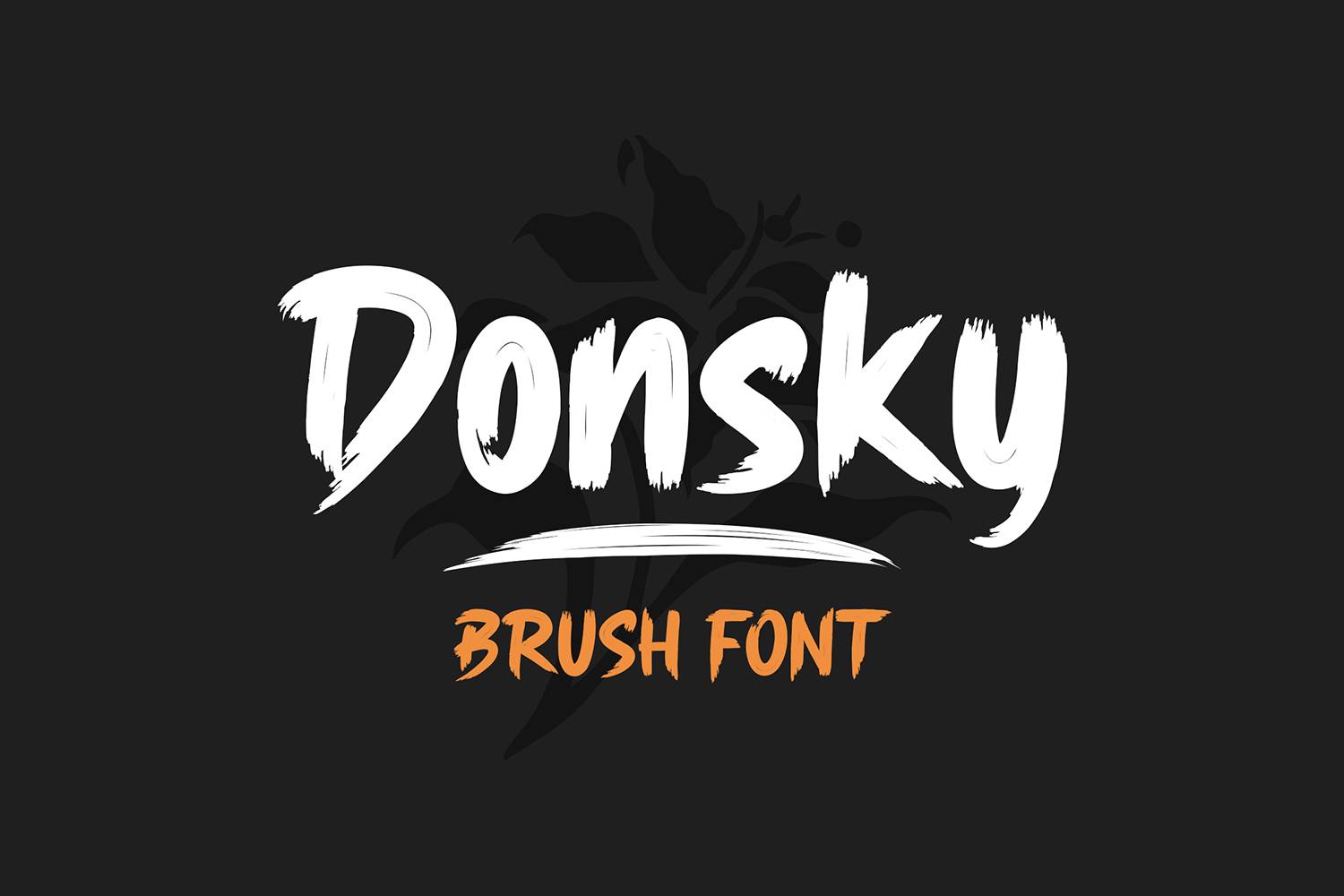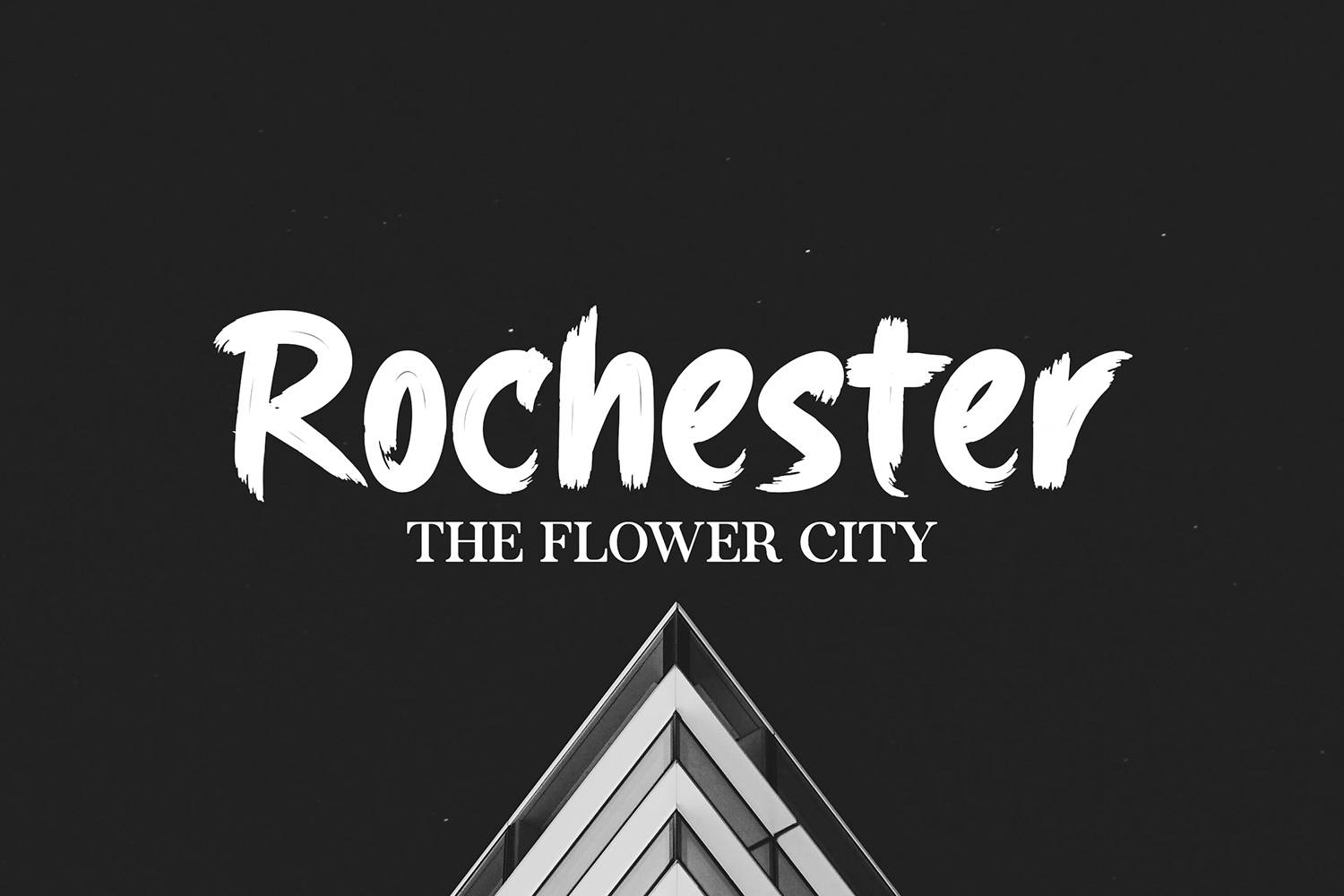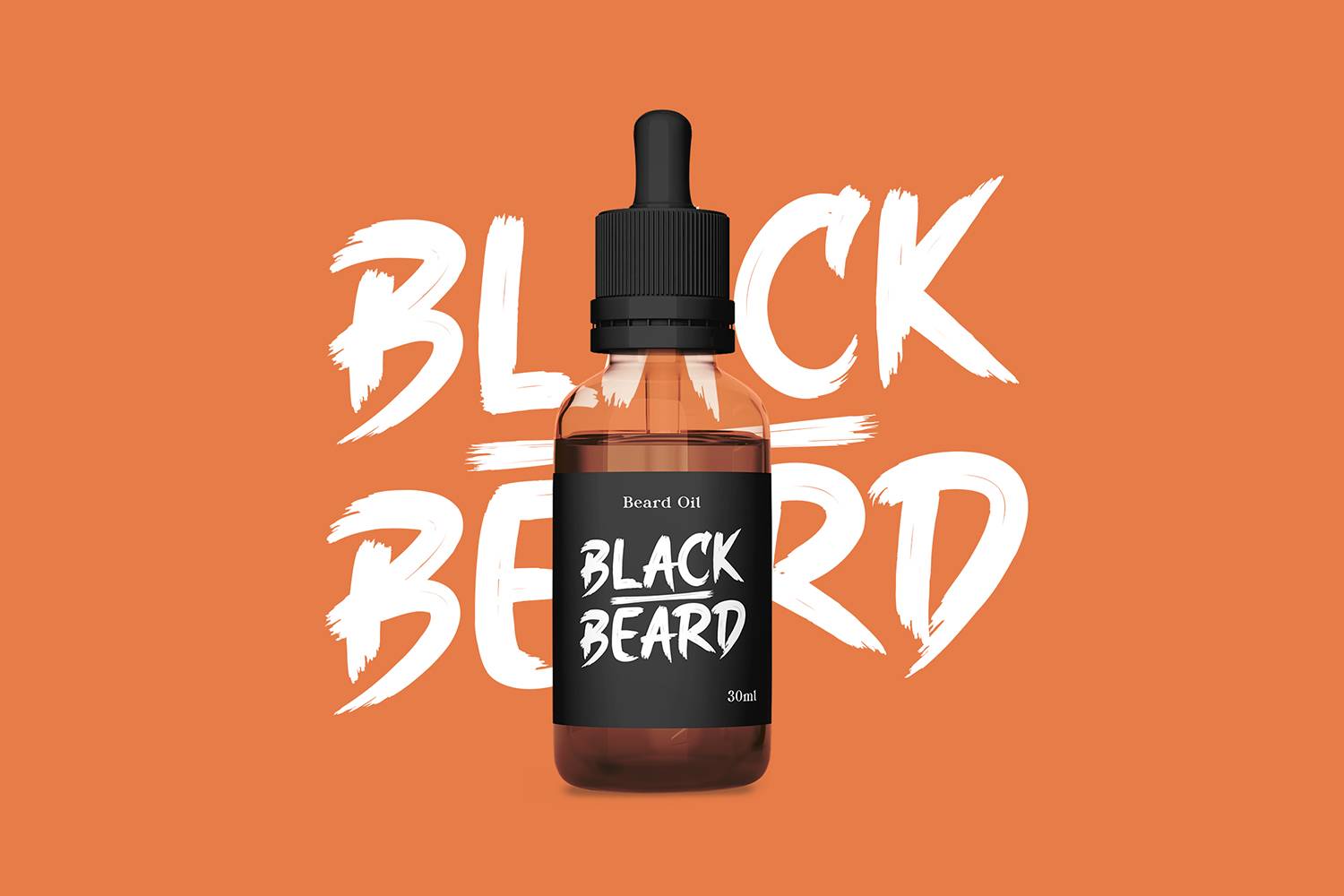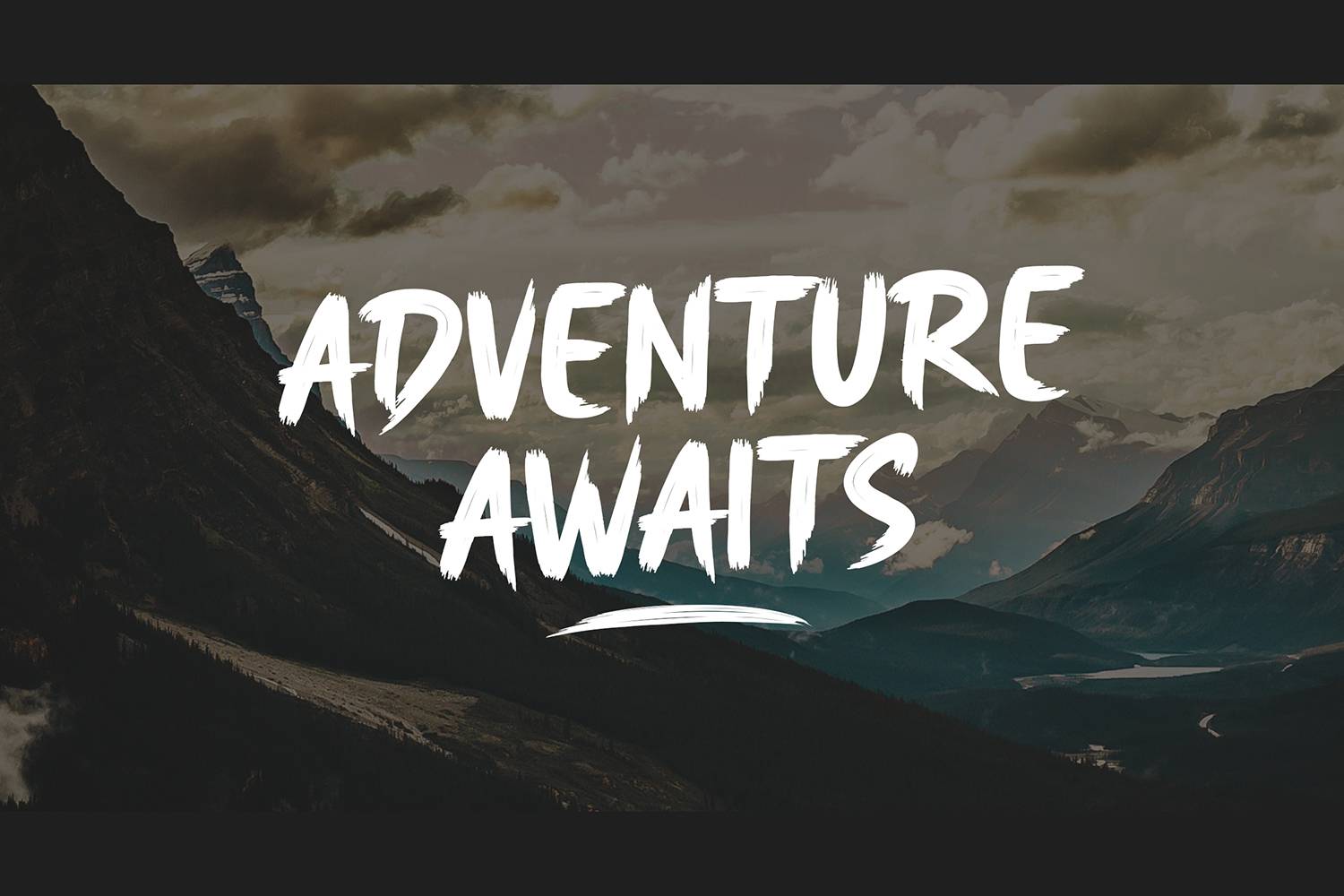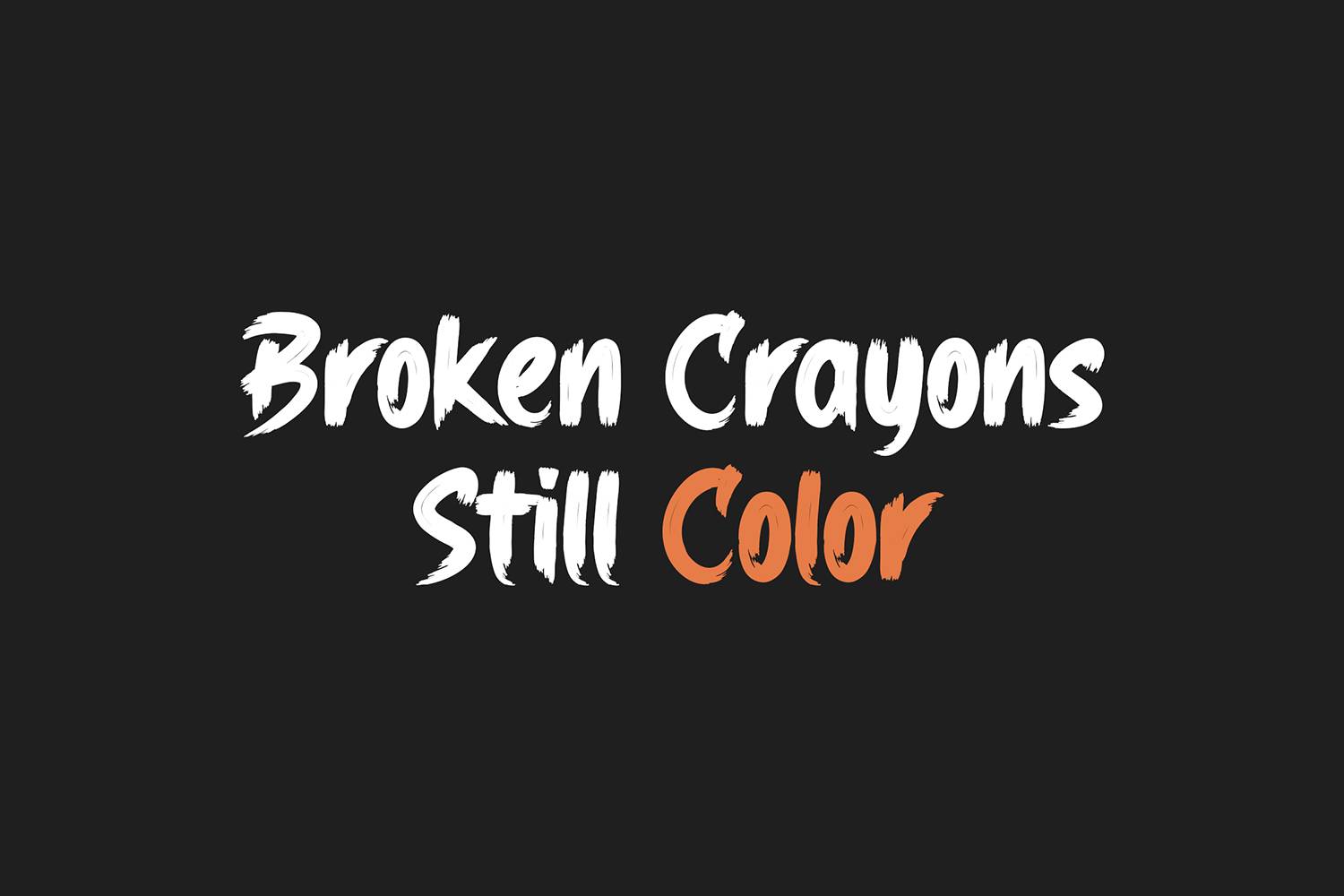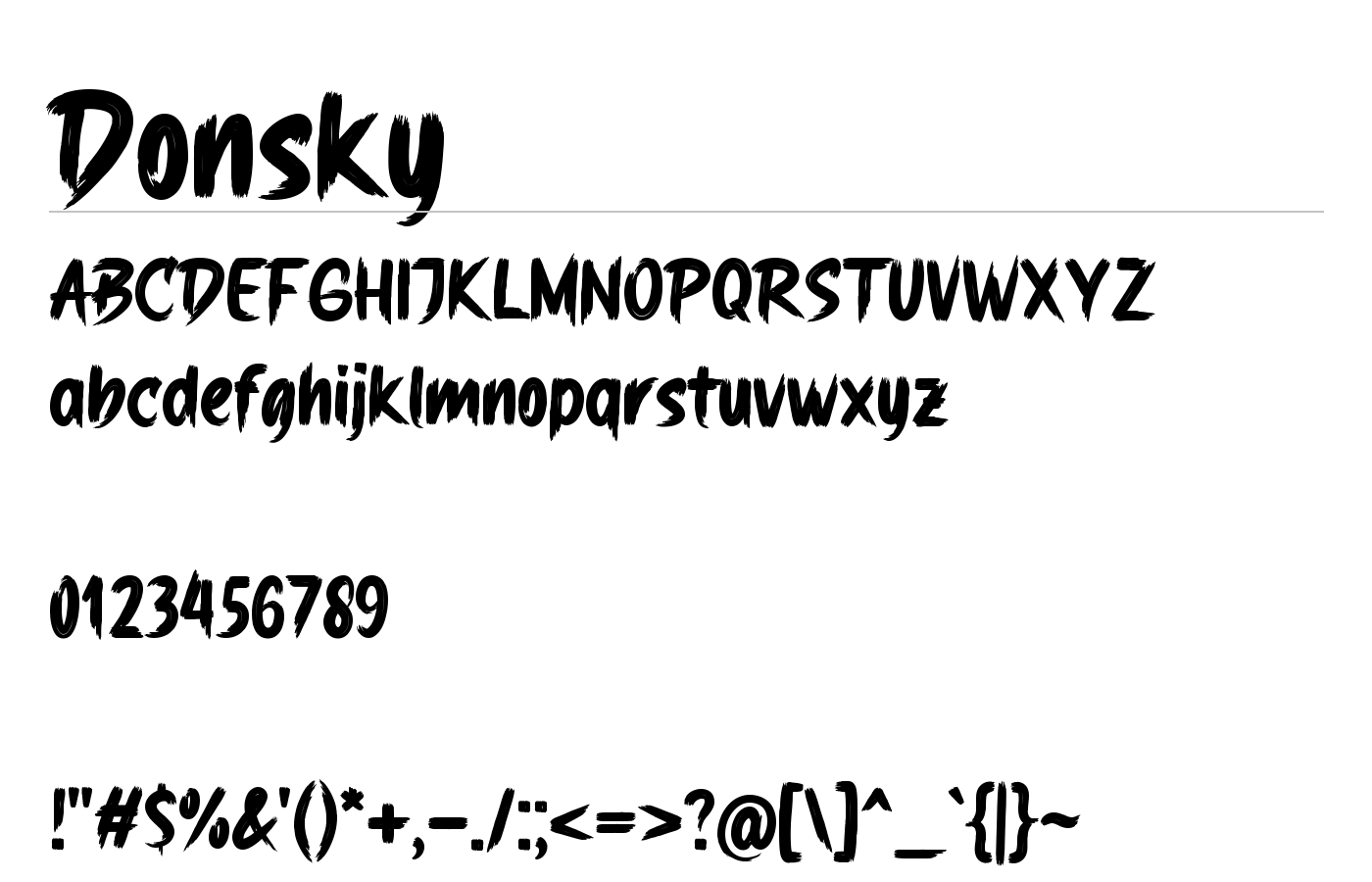
Donsky is a bold, brush-style script font with an energetic and casual feel, characterized by its textured, hand-painted strokes and slightly irregular shapes. It works well for creative and expressive designs, making it ideal for headlines, logos, posters, and branding that seek a dynamic, urban, or artistic vibe. Its distinct personality adds a lively and approachable touch to projects needing a strong visual impact.
Donsky Font
About Donsky Font
| Font family | Donsky Font |
| Designer | Dwi Ahidian |